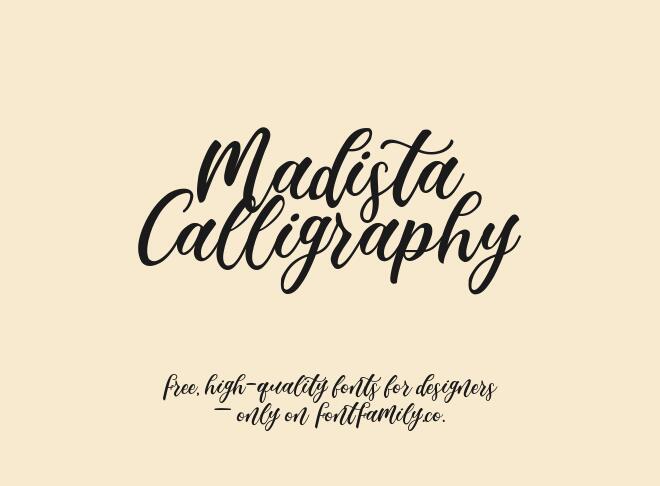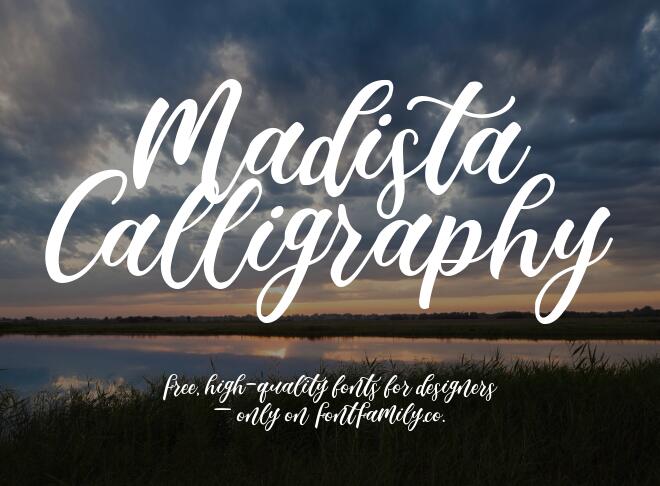
Madista Calligraphy Font
Madista Calligraphy Font, created by Fontastico Foundry, is an exquisite blend of elegance and creativity. It showcases a unique handwritten style with a touch of calligraphy, making it perfect for wedding invitations, event signage, and logo design. The font's decorative and elegant characteristics set it apart from other fonts, providing a distinctive charm that adds a sophisticated touch to any design project. With its beautifully crafted characters and fluid strokes, Madista Calligraphy Font draws attention and creates a lasting impression. This font is an excellent choice for designers aiming to bring a touch of elegance and refinement to their projects. Despite its intricate design, it maintains a high level of readability, making it versatile and user-friendly. Download Madista Calligraphy Font today to add a touch of class and creativity to your design portfolio.